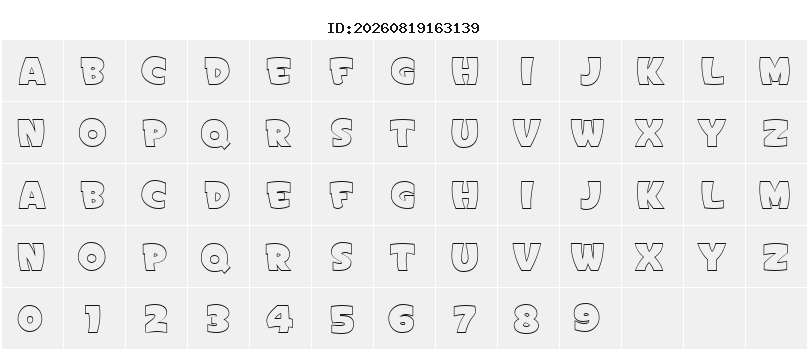
• Font Name: Sign Painter's Gothic Open JL
• Full Font Name: Sign Painter's Gothic Open JL
• Designer: Jeffrey N. Levine
• Manufacturer: Jeff's Fonts & Dingbats
• Description: An outline version of "Sign Painter's Gothic JL".
Sign Painter's Gothic Open JL.ttf is a modern, elegant sans-serif font designed for ultimate readability and visual harmony. Perfect for branding, headlines, web design, and print materials.